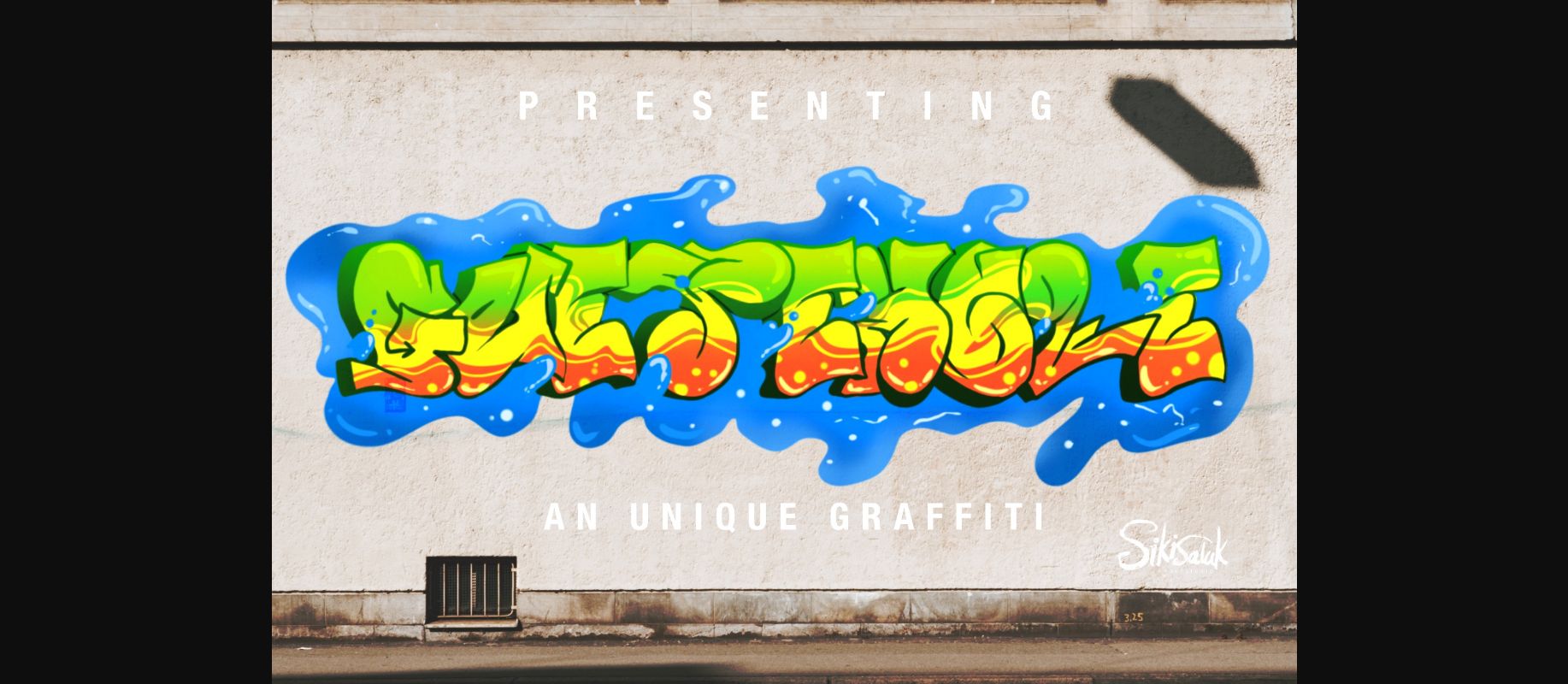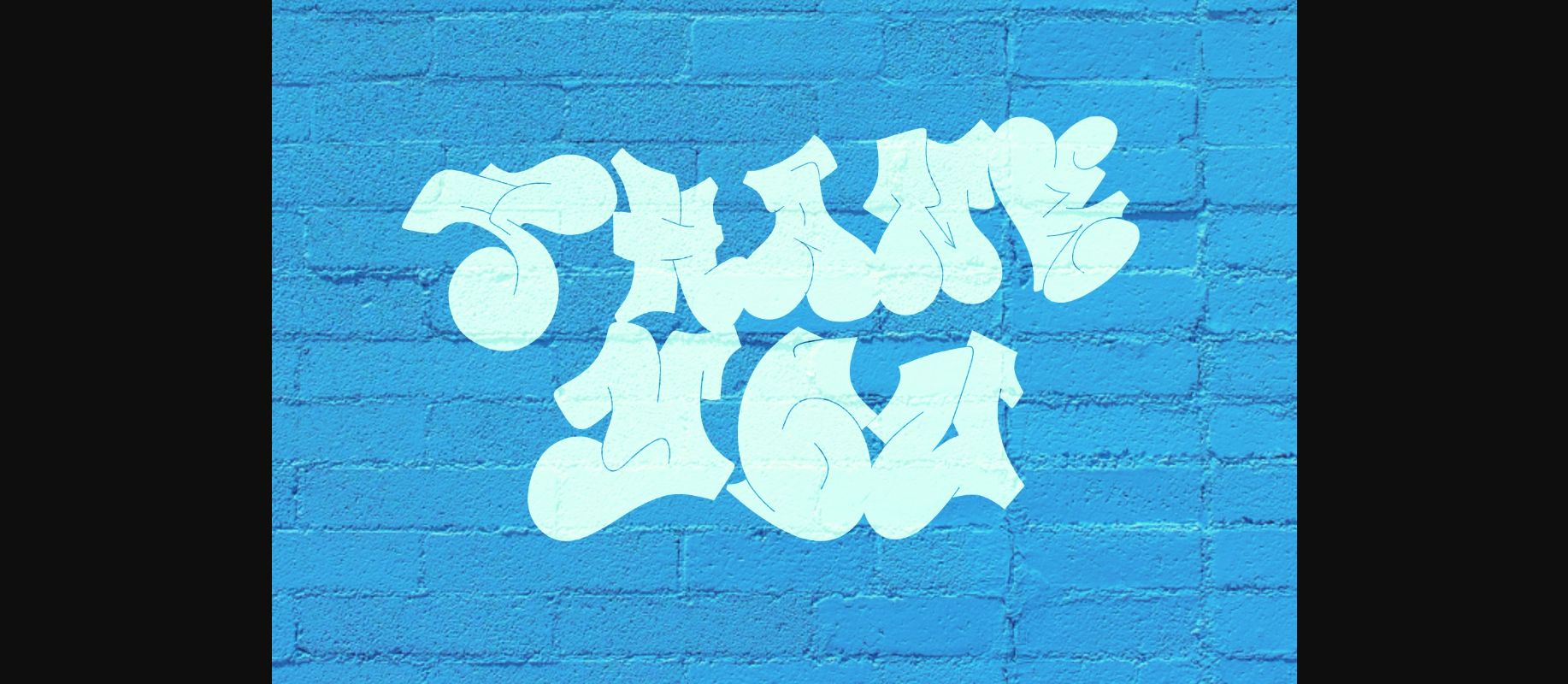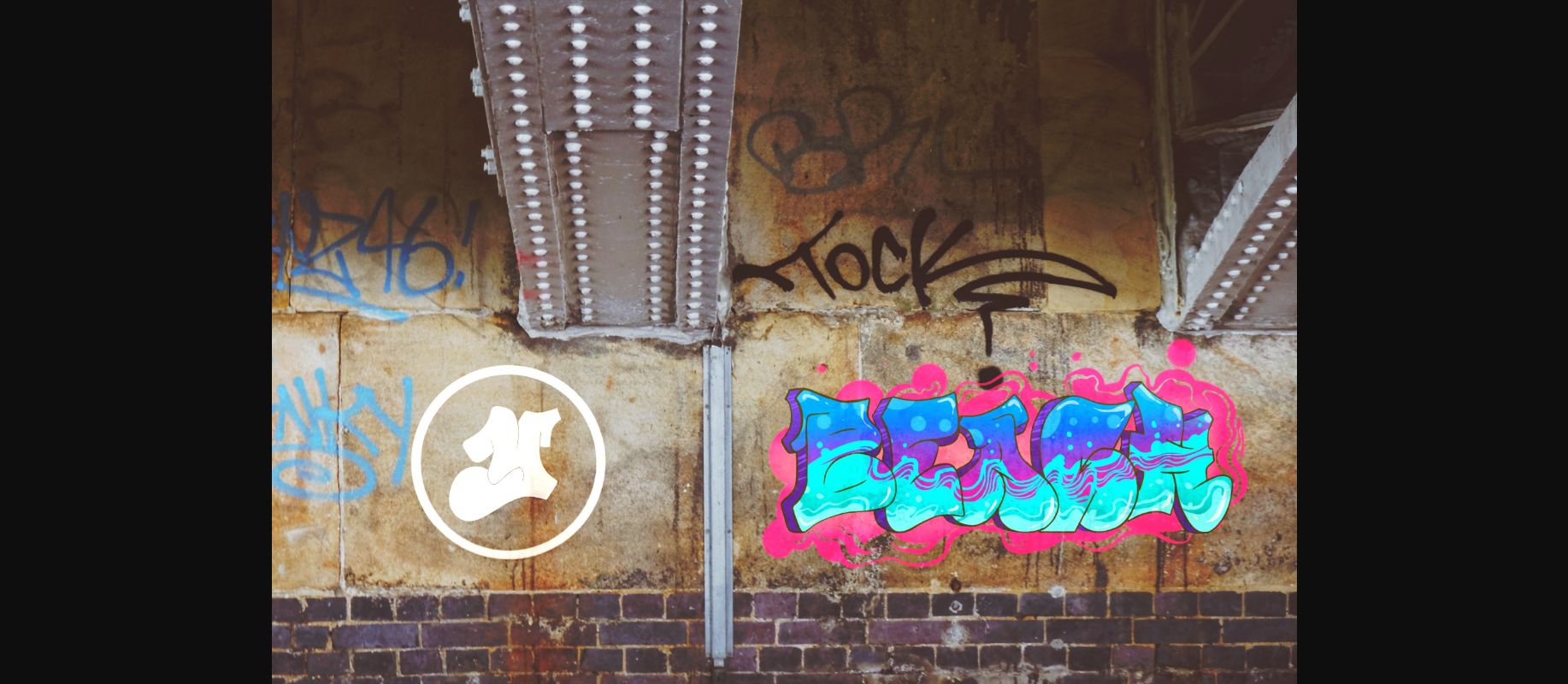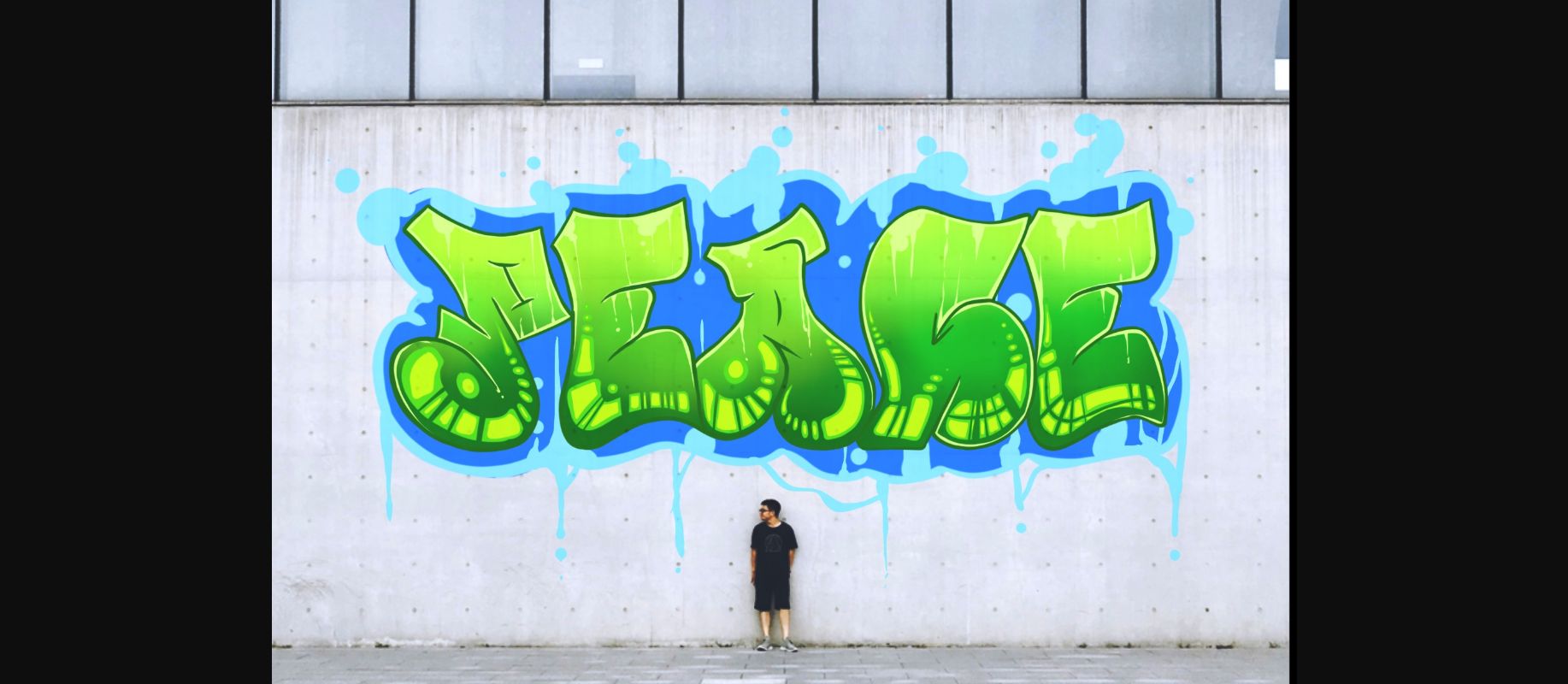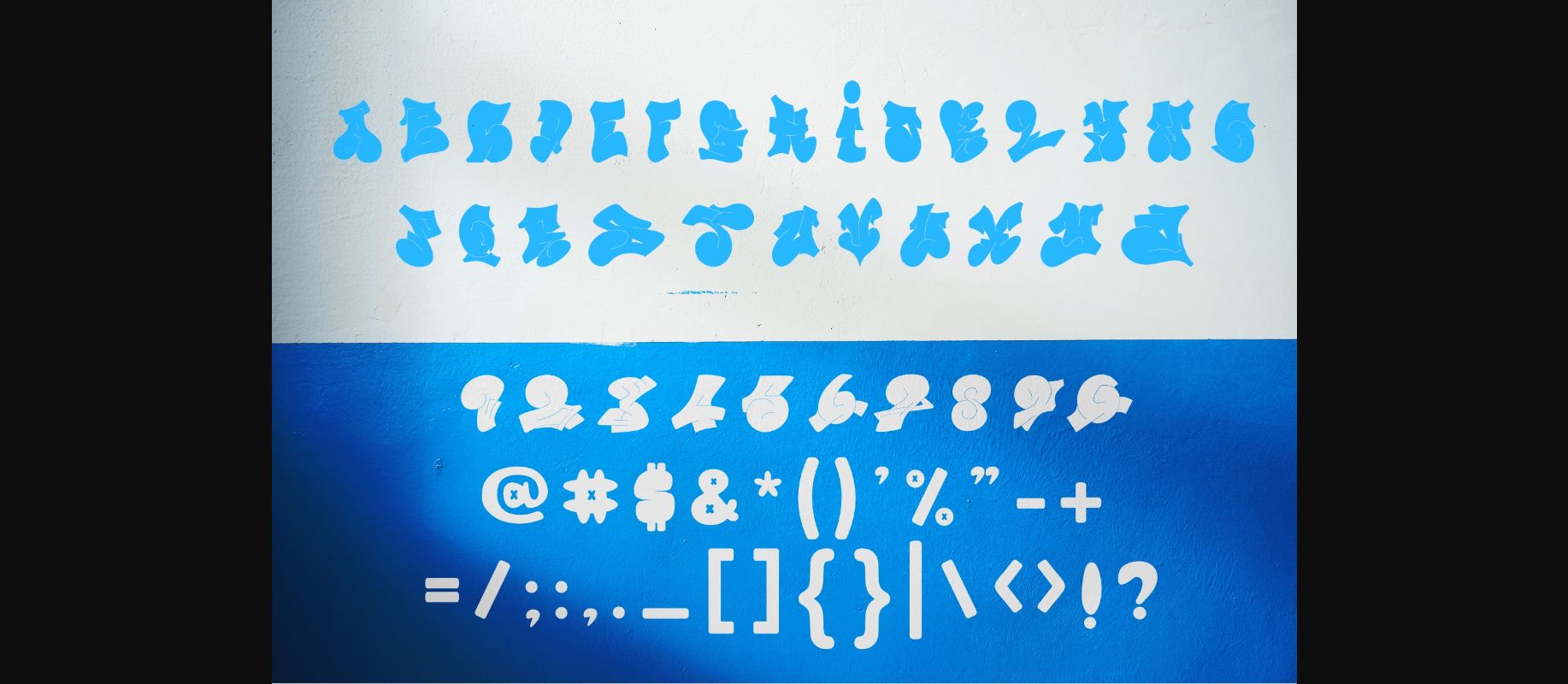
About Guetemole Font
Guetemole is a spectacular decorative font with a graffiti style. It will elevate a wide range of design projects to the highest level, be it branding, headings, wedding designs, invitations, signatures, logotype, wallart illustration, apparel, labels, and much more!